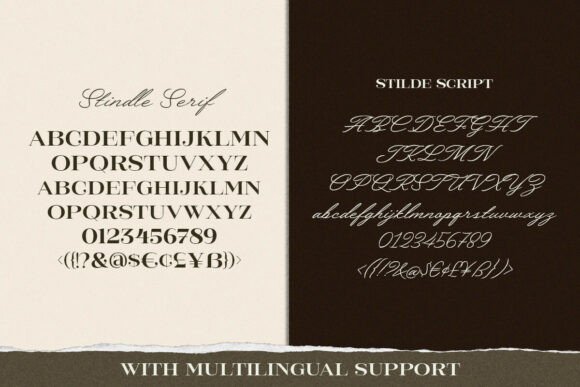
Stindle Font
Experience the harmony of contrast with Stindle Typeface, a sophisticated font duo seamlessly combining a clean, high-contrast serif with an elegant, flowing script.
The serif is tall, sharp, and modern, offering a confident, structural foundation for headlines, while the accompanying script provides a personal, romantic, and beautifully dynamic counterpoint with its effortless swashes and connecting tails.
This versatile duo is a cornerstone for premium branding, high-end wedding invitations, photography watermarks, and luxurious editorial design. The ability to pair the authoritative serif with the soft, feminine script creates instantly balanced and visually rich layouts. Use Stindle to achieve a polished, contemporary look that is both strong in message and delicate in style, effortlessly transitioning from rugged adventure branding to refined fashion campaigns.